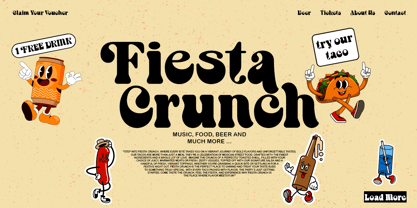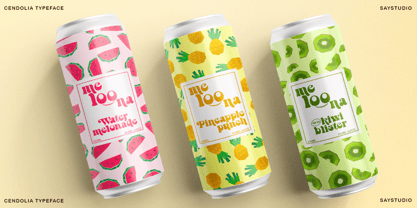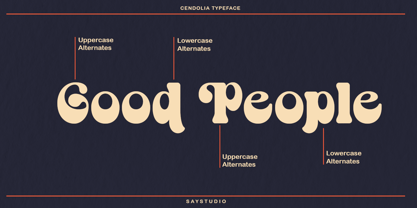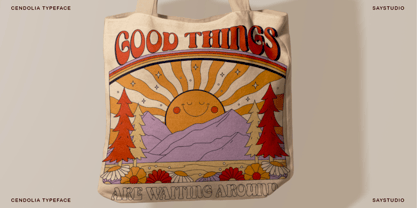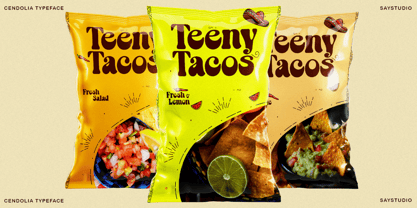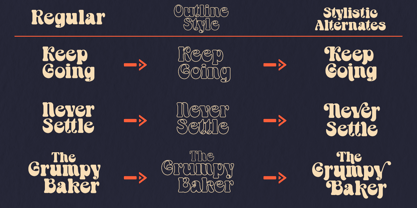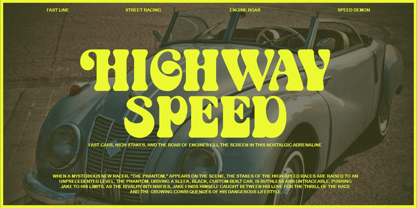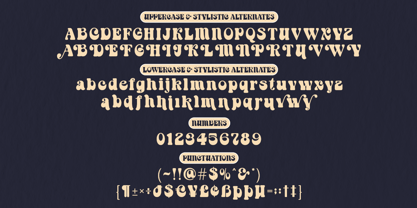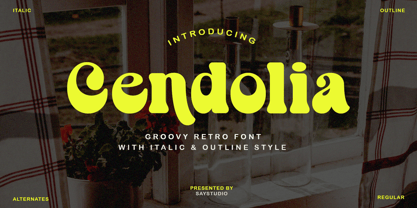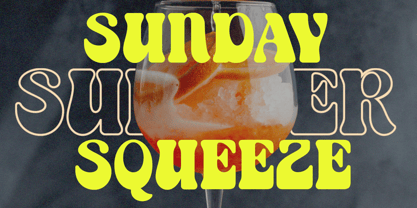
Cendolia
by Say Studio
The Cendolia Font Family was designed by Mussyayin and published by Say Studio. Cendolia contains 3 styles and family package options.
Cendolia is a groovy retro font with outline and italic style. You will also get additional alternative character fonts that make your design projects amazing. Use this display font to add that special groovy touch to any design idea you can think off!,This font is ready to be used in any project. Very suitable for logotype, Stickers, Packaging design, Cricut Project, headlines, brand identity, t shirt or apparel industry, posters, magazines, books, YouTube, Instagram, websites, or any of your creative design projects.
- Cendolia
- Cendolia Outline
- Cendolia Italic
- Stylistic Alternates
Designers: Mussyayin
Publisher: Say Studio
Foundry: Say Studio